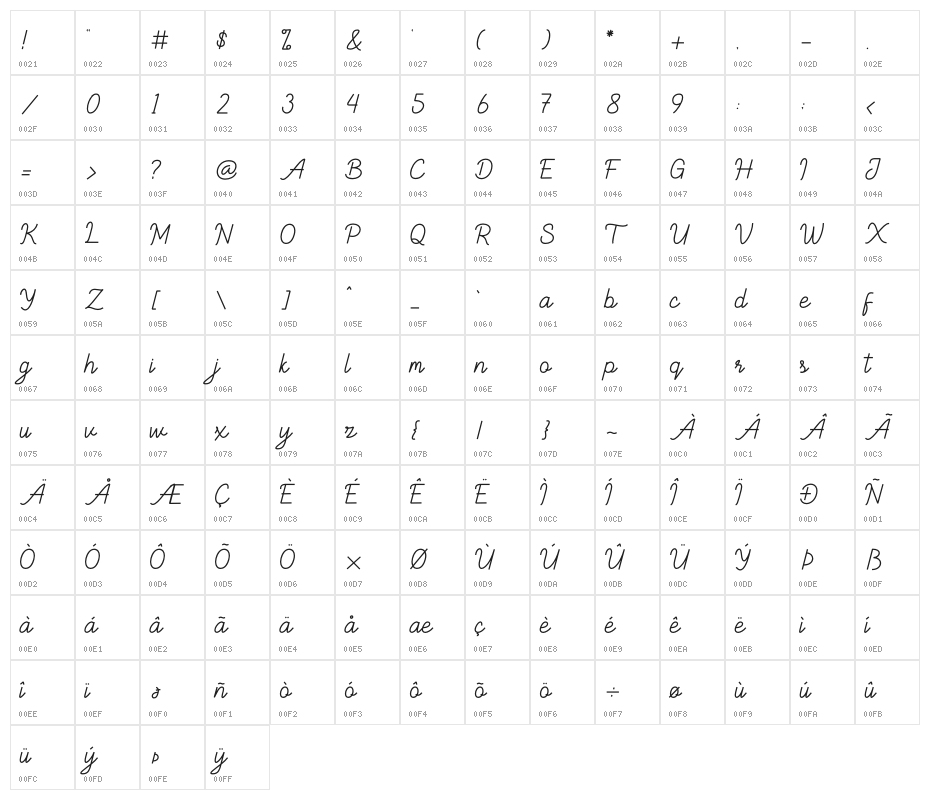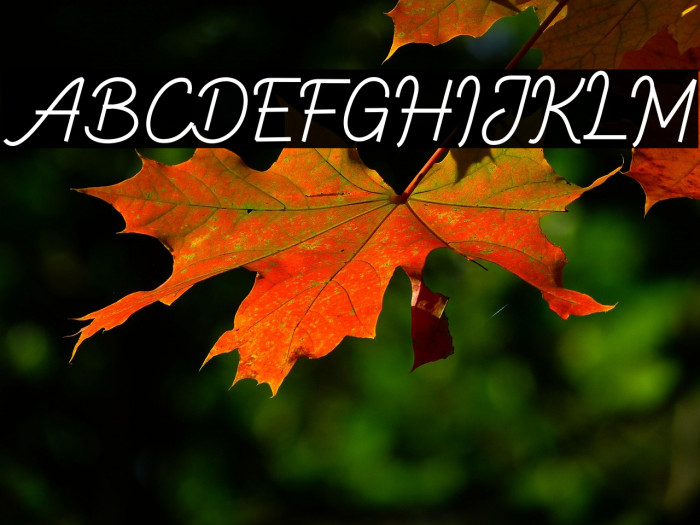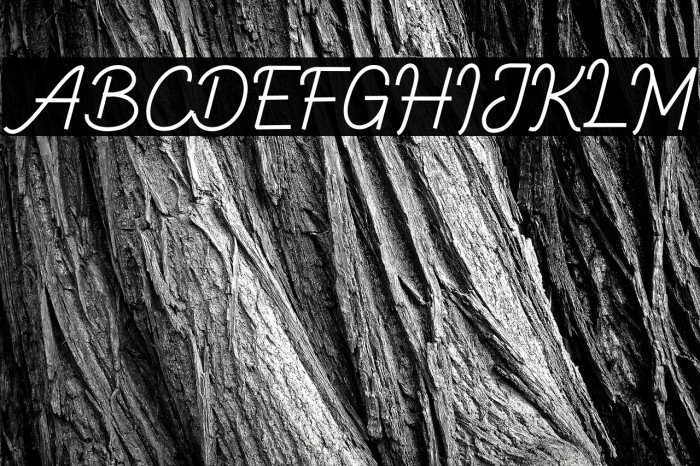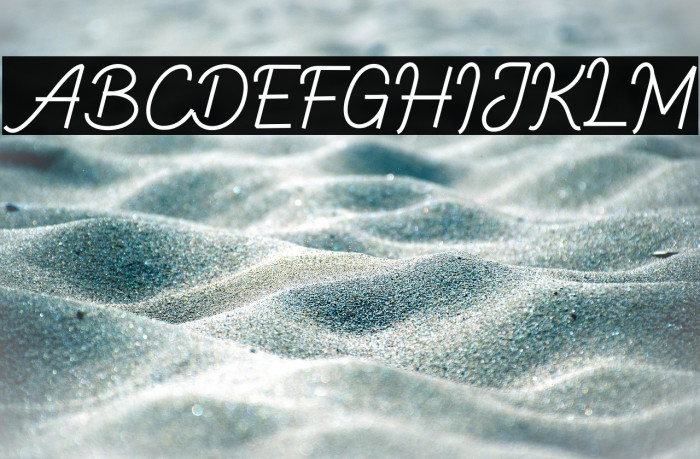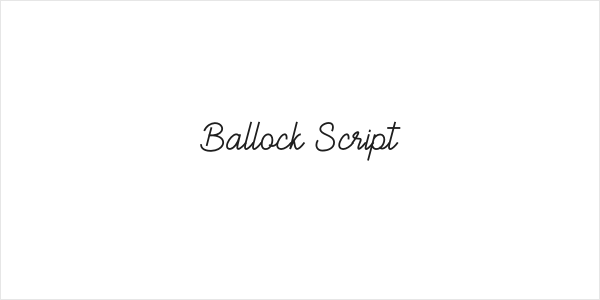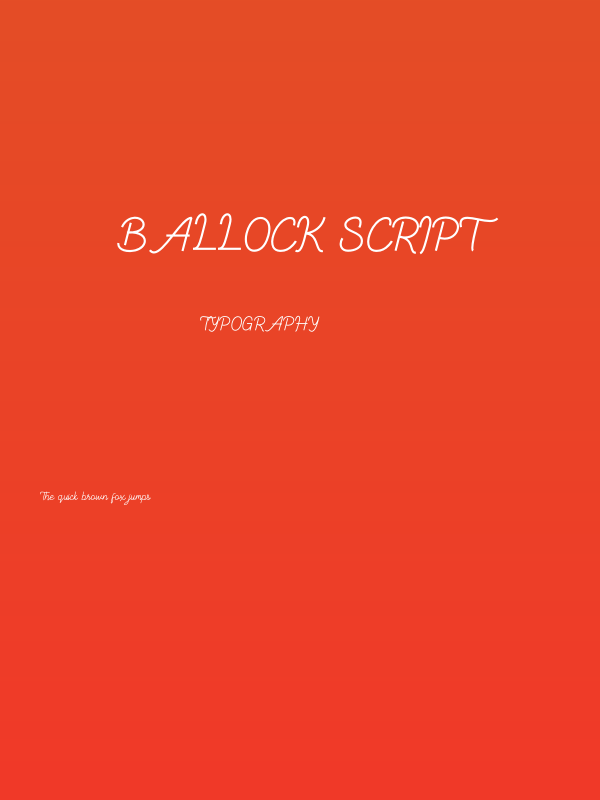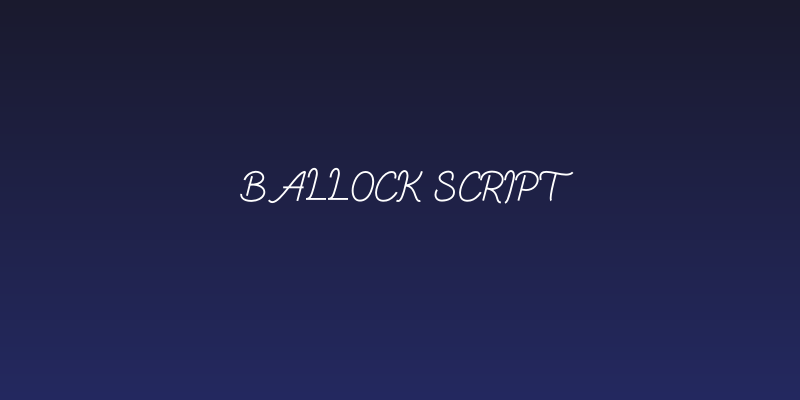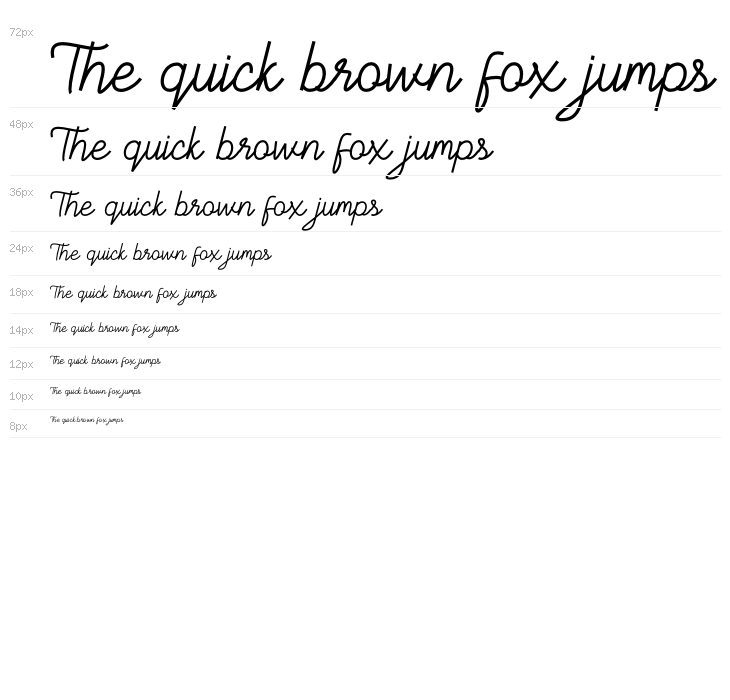
Ballock Script Font
Ballock Script Description
This elegant script font features a flowing, cursive style that mimics natural handwriting. The uppercase letters are gracefully elongated, with smooth curves and a slight slant that adds a sense of motion and fluidity. The lowercase letters are compact yet maintain a consistent rhythm, enhancing readability while preserving the font's artistic flair. Numbers and special characters are designed with the same attention to detail, ensuring a cohesive look across all text elements. The overall design is sophisticated, making it ideal for projects that require a touch of elegance and personal expression.
| Overall Style | Elegant, Handwritten |
| Proposed Projects | Ideal for wedding invitations, greeting cards, personal branding, and elegant packaging designs. |